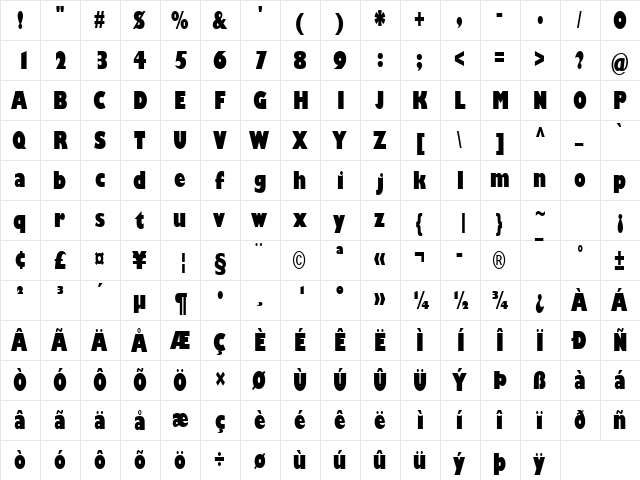
Gill Sans MT Ultra Bold Cond Regular
| Foundry | Monotype Typography |
| Designer | Eric Gill |
Design Context for Gill Sans MT Ultra Bold Cond Typeface
Gill Sans MT Ultra Bold Cond is a composed and adaptable typeface that performs quietly and consistently across a wide range of design contexts. The heavy weight commands attention and anchors typographic hierarchies. Its narrow stance lets it pack a punch even in space-constrained designs.